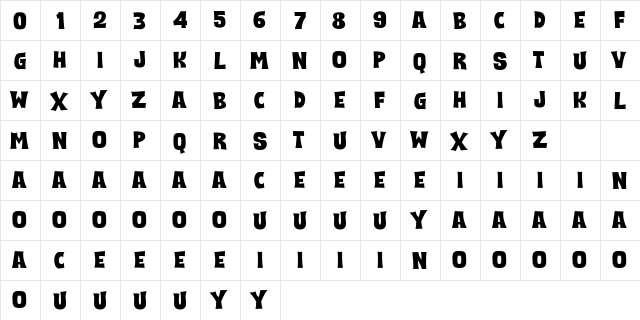
SCARY And SPICY Regular
Design Context for SCARY And SPICY Typeface
SCARY And SPICY carries an unsettling edge — its distorted letterforms are built to unsettle, perfectly suited to horror, Halloween, and dark creative work.
Ideal for Halloween projects, horror film titles, haunted house signage, and dark editorial design.
Font Pairing: Pair with a clean neutral sans-serif for body copy to let SCARY And SPICY's character lead without overwhelming the composition.
Pro Tip: SCARY And SPICY works best as a headline or focal element. Pair it against plain, neutral body text to amplify the contrast.